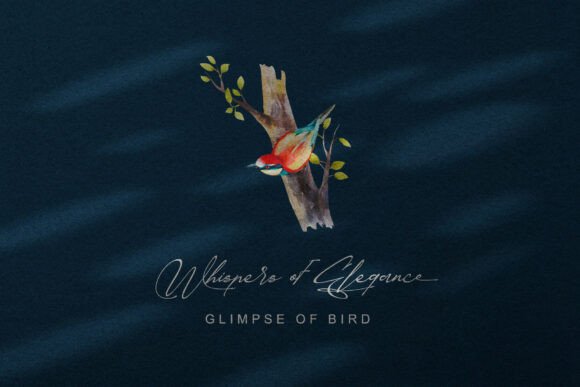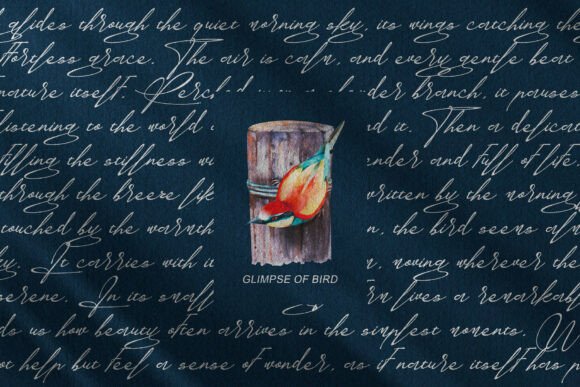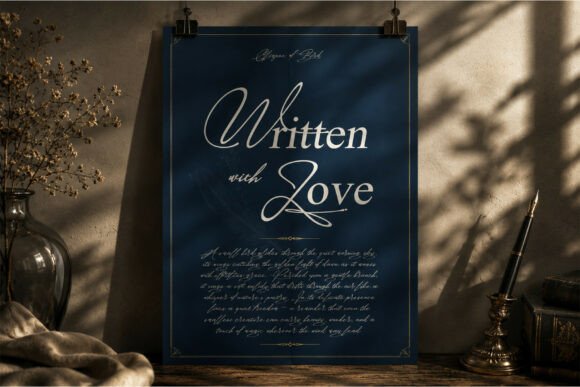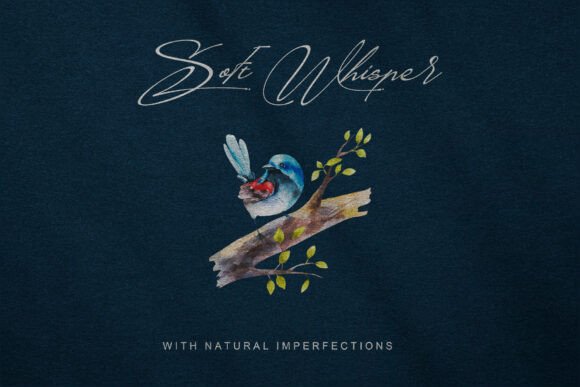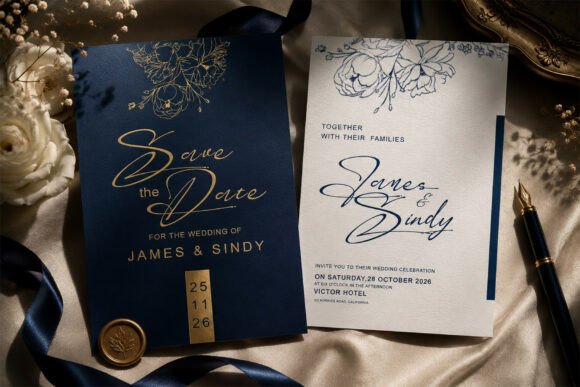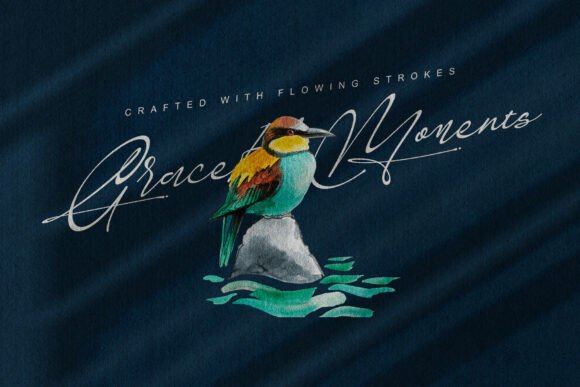
Introduction to Maisonelle Font
As designers, we’ve all been there – staring at a blank canvas, trying to bring a creative project to life. It’s in these moments that the right font can make all the difference. Imagine being able to add a touch of elegance and sophistication to your designs with a single font. This is exactly what the Maisonelle Font achieves, capturing the beauty of authentic signature writing with its flowing strokes and delicate curves.
With its refined handwritten feel and smooth rhythm, the Maisonelle Font is a valuable resource for designers looking to elevate their designs. Whether you’re working on a luxury branding project, creating a wedding invitation, or designing a premium logo, this font is sure to impress. And the best part? It’s available for free download, making it an accessible design resource for creatives of all levels.
- High-quality, elegant design ideal for creative projects and sophisticated designs
- Medium weight, making it suitable for body text and headings in various design contexts
- Unique characteristics include elegant curves and subtle flourishes, adding a touch of sophistication to any design
Honest Review: Maisonelle Font
I recently came across the Maisonelle Font, and I must say it’s a great addition to any design project. ✨ Its elegant and sophisticated style makes it perfect for high-end creative projects, and the transparent background allows for seamless integration with any design.
Here are some of the key features that make the Maisonelle Font stand out:
- Elegant and sophisticated style
⚠️ One potential limitation is that the Maisonelle Font may not be suitable for projects that require a more playful or casual tone. However, for high-end designs, it’s an excellent choice.
Overall, I’m impressed with the Maisonelle Font. It’s a great design resource that’s sure to elevate any project. ✨ I’d definitely recommend it to designers looking for a high-quality, elegant font.
Maisonelle Font
Maisonelle Font is a high-quality, elegant design resource perfect for any creative project. This beautiful font features a transparent background, making it ideal for overlays, text effects, and more.
Tips for Getting the Most Out of Maisonelle Font
To get the most out of Maisonelle Font, use it in combination with other design elements, such as images and graphics, to create a cohesive and visually appealing design.
Maisonelle Font is perfect for a variety of creative projects, including wedding invitations, birthday cards, and social media graphics. Its elegant design and transparent background make it ideal for adding a touch of sophistication to any design.